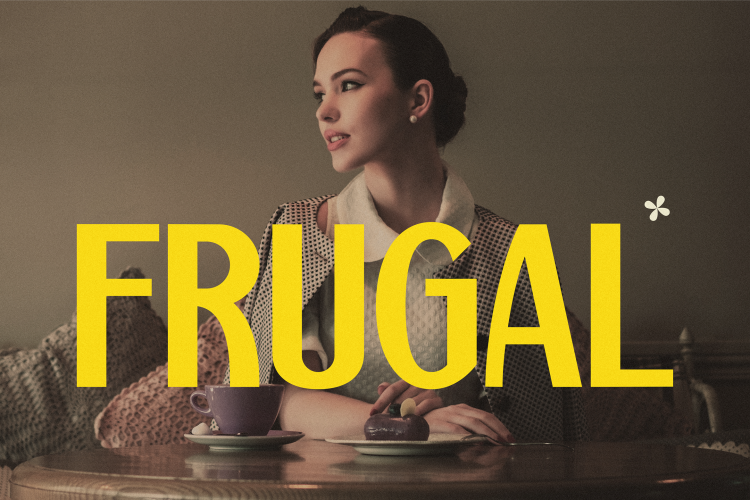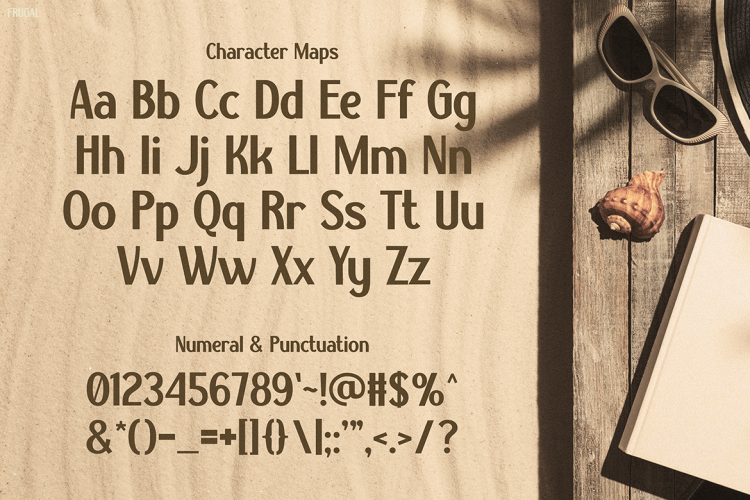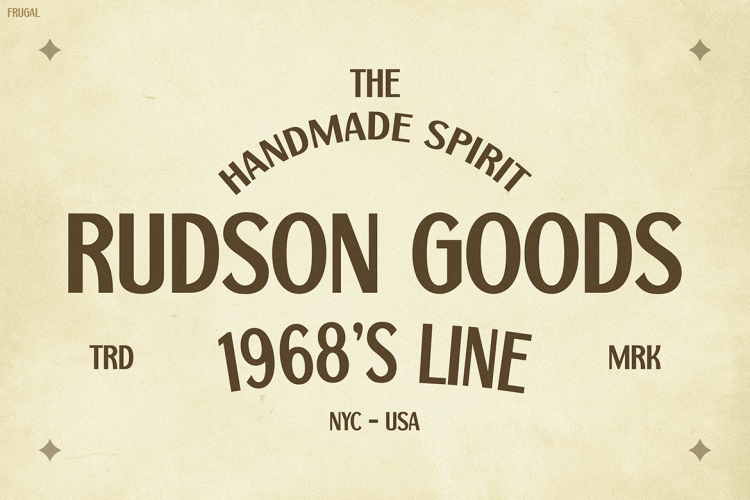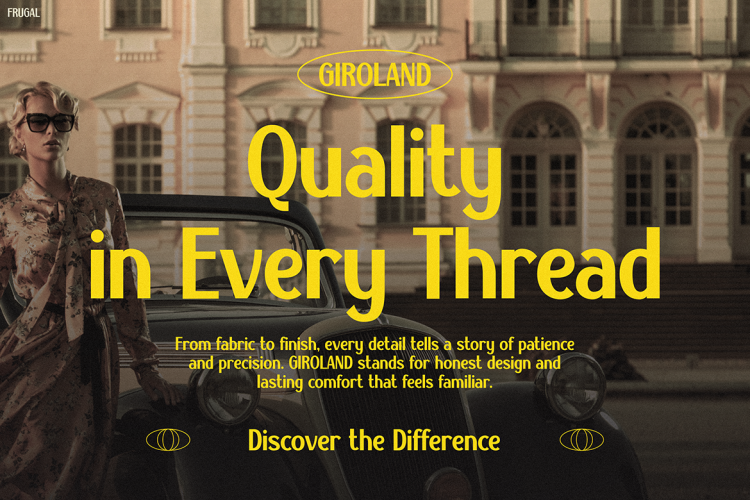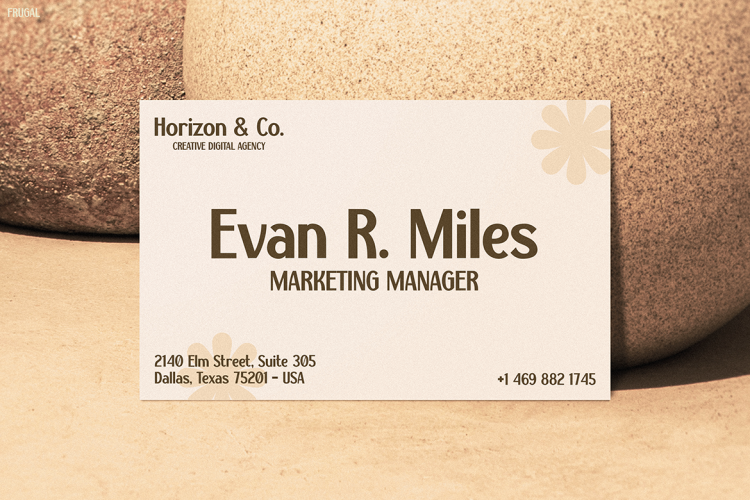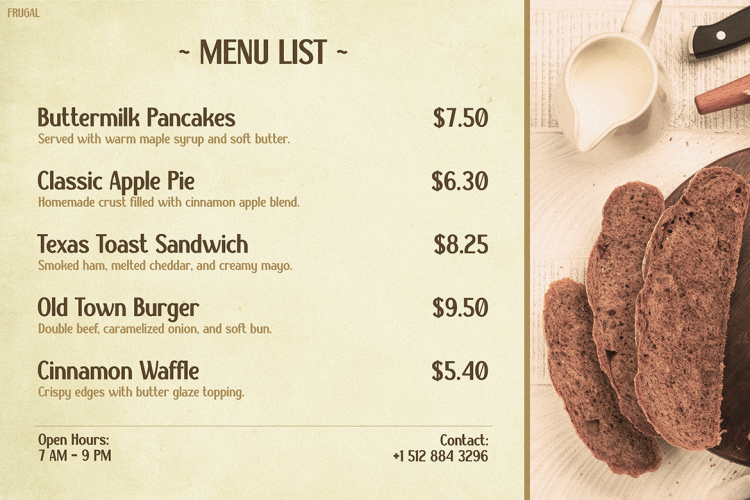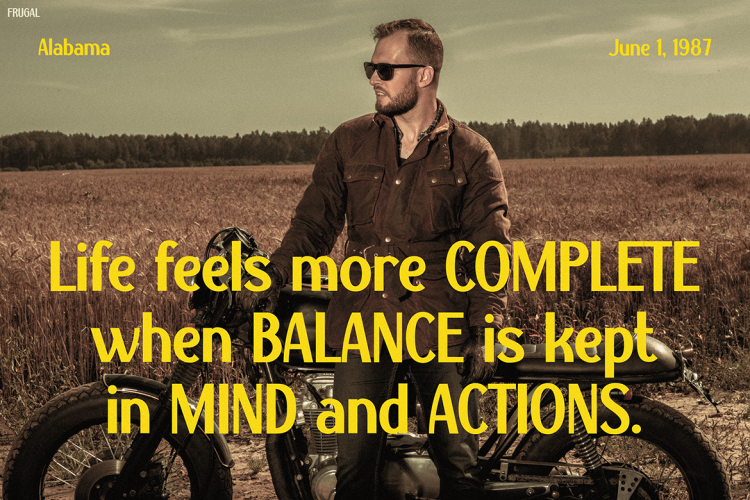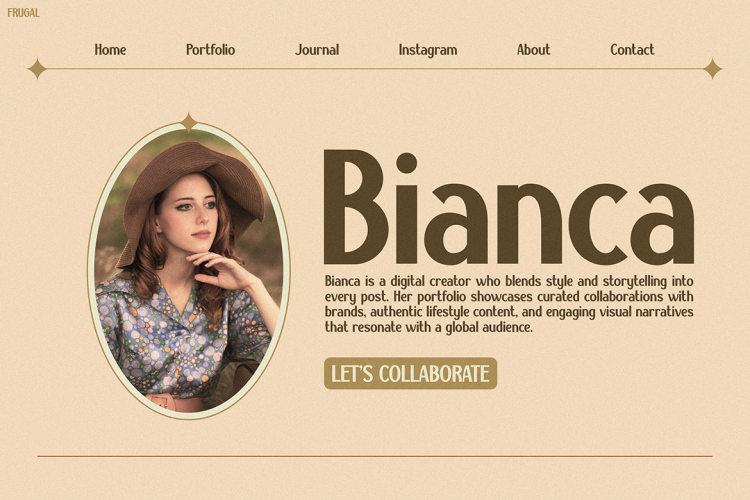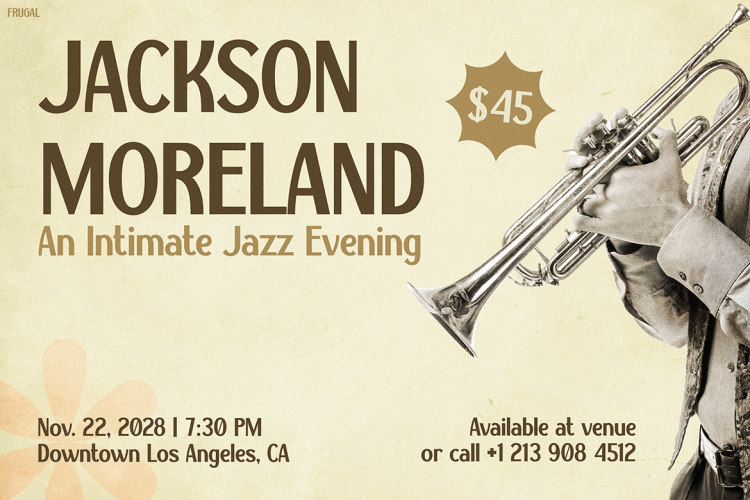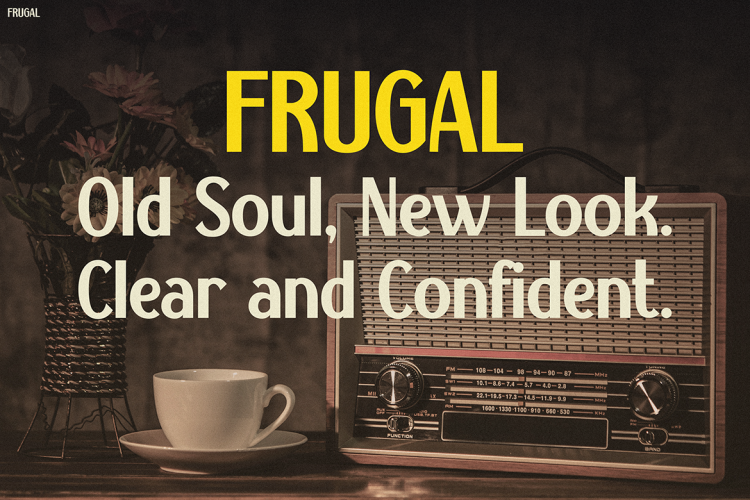
Retro Font FRUGAL โ Clear, Bold, and Timeless
Retro Font FRUGAL captures the beauty of classic typography and redefines it for modern design. With its confident strokes, smooth curves, and balanced proportions, this typeface delivers both nostalgia and precision. Its geometric yet humanistic structure allows it to remain versatile across styles. Moreover, FRUGALโs clean aesthetic ensures that every letter feels intentional, giving your text a sense of authority and elegance. Therefore, whether youโre aiming for a vintage vibe or a minimalist look, this font effortlessly bridges both worlds.
Each character in Retro Font FRUGAL is crafted to create a harmonious visual flow. The subtle contrast in weight and spacing enhances legibility while maintaining a timeless charm. In addition, its refined simplicity makes it stand out in a sea of over-decorated retro fonts. FRUGAL is not only visually appealing but also functionally adaptable, making it perfect for various applicationsโfrom editorial layouts to modern branding projects.
Perfect for Creatives and Professionals Alike
Retro Font FRUGAL was made for those who value design integrity and aesthetic consistency. Designers, brand creators, and creative entrepreneurs will appreciate how easily it transforms any project into something memorable. Furthermore, its professional tone makes it ideal for marketing teams, boutique brands, and lifestyle businesses seeking a distinctive yet trustworthy visual identity.
You can use it confidently on posters, packaging, cafรฉ menus, or fashion lookbooks. As a result, your designs will exude clarity, warmth, and confidence all at once. In addition, FRUGALโs balance between old-fashioned charm and modern appeal ensures it works beautifully in both print and digital settings. Itโs the kind of typeface that instantly communicates sophistication without trying too hard.
A Timeless Choice Worth Adding to Your Collection
In an era where design trends change rapidly, Retro Font FRUGAL remains a timeless choice. Its thoughtful design, smooth readability, and elegant presence make it a valuable asset for any creative toolkit. Moreover, the combination of its modern usability and vintage soul guarantees your projects will stand out with confidence. Therefore, if youโre looking for a typeface that speaks clearly, feels genuine, and looks effortlessly stylishโFRUGAL is your perfect match. Donโt just design; make a lasting impression with FRUGAL.